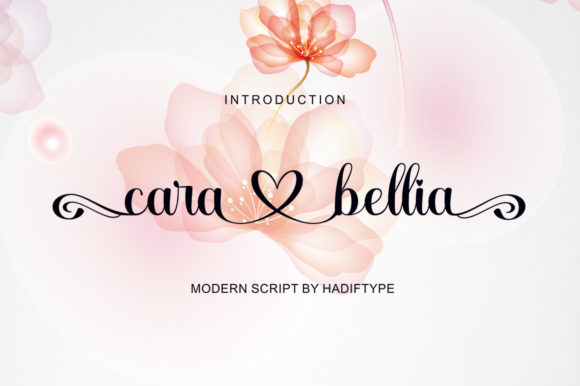
The Magic of Cara Bellia Script: Elevate Your Designs with Luxury and Elegance
I still remember the time I was working on a wedding invitation project, and my client asked for a font that would make their special day feel like a fairytale. I scoured the internet, trying out font after font, but nothing seemed quite right. That was until I stumbled upon Cara Bellia Script. This romantic and sweet calligraphy typeface instantly captured the essence of what my client was looking for, and I knew I had found the perfect fit. In this article, I’ll share with you why Cara Bellia Script is a game-changer for designers, crafters, and creative hobbyists alike.
- 💫 Romantic and elegant calligraphy style that’s perfect for luxury designs
- 🎨 Highly versatile and can be used for a variety of design projects, from wedding invitations to branding and packaging
- ⚠️ May not be suitable for very small font sizes, as some details may get lost
- ⚠️ Some users may find the font a bit too ornate or over-the-top for certain design projects
The Story Behind Cara Bellia Script: Designer Inspiration
Cara Bellia Script was designed with the intention of capturing the essence of romance and luxury. The font’s creator drew inspiration from traditional calligraphy techniques, combined with a modern twist to make it suitable for a wide range of design projects. Whether you’re working on a wedding invitation, a branding campaign, or a packaging design, Cara Bellia Script is sure to add a touch of elegance and sophistication.
| Is Cara Bellia Script suitable for body text? | While Cara Bellia Script is a beautiful font, it’s best suited for headlines and titles. For body text, you may want to choose a font with better legibility. |